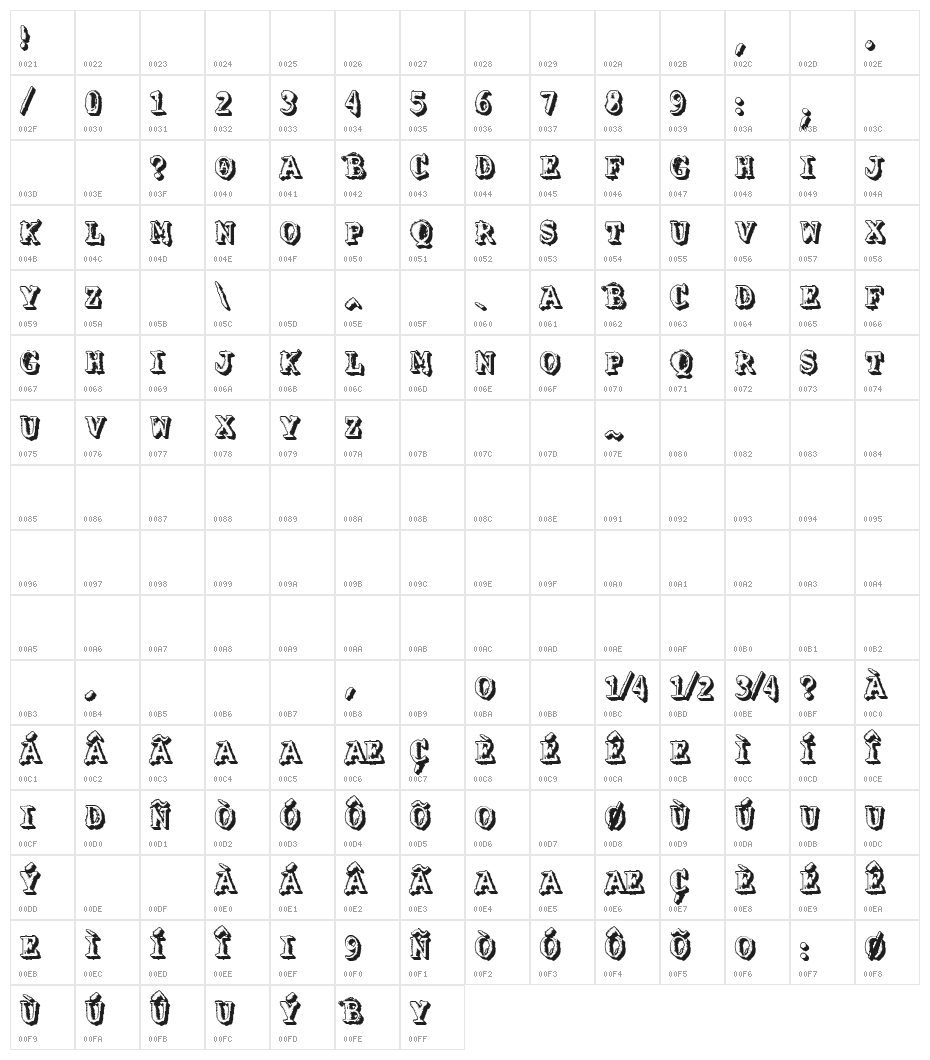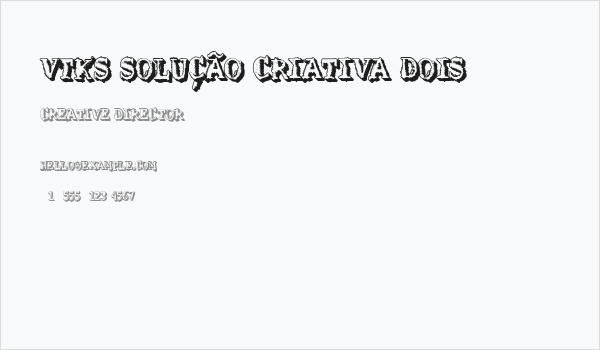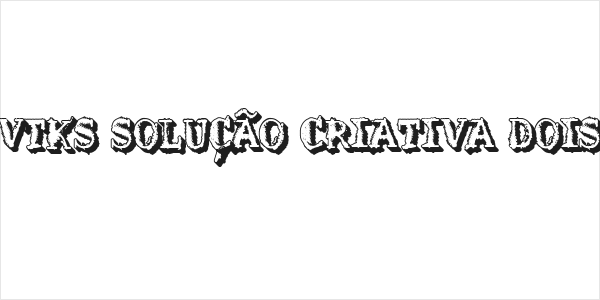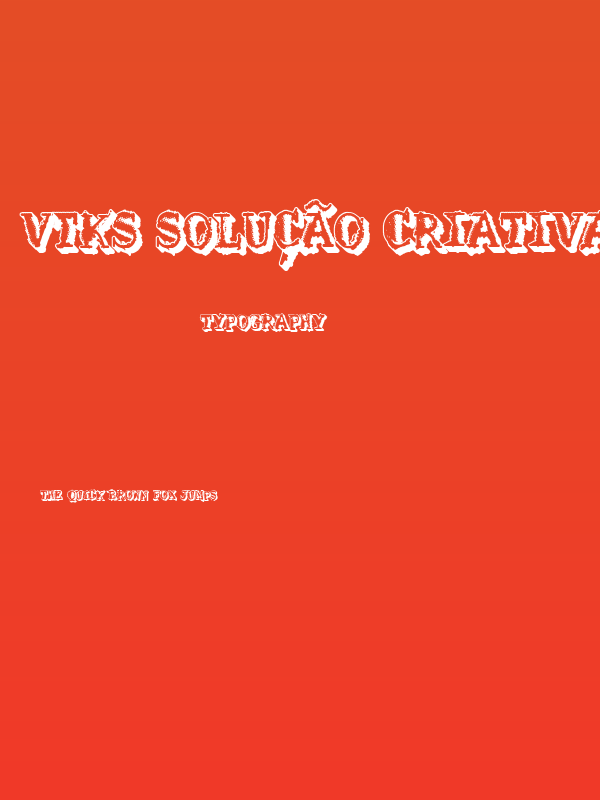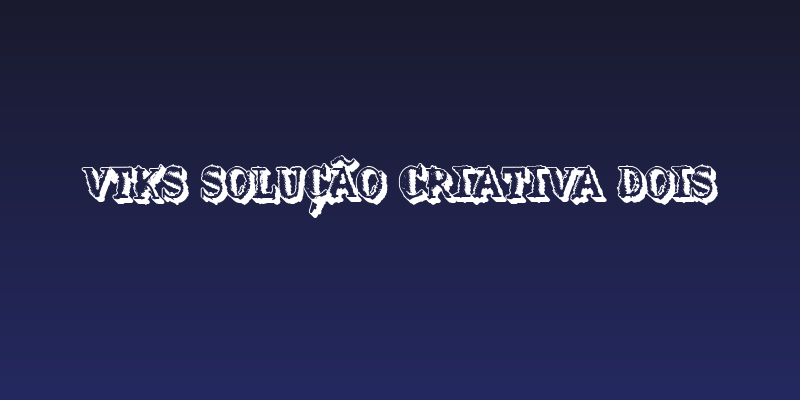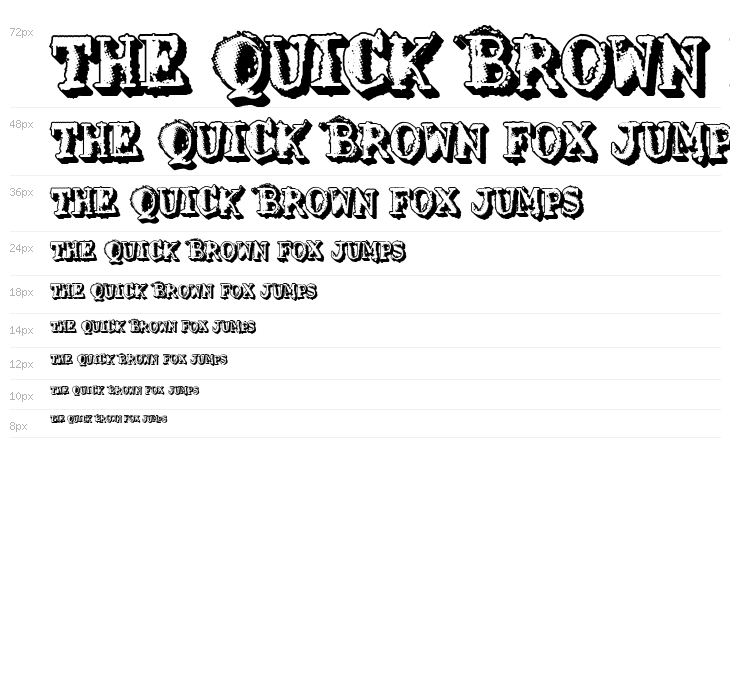
VTKS SOLUÇÃO CRIATIVA DOIS Font
VTKS SOLUÇÃO CRIATIVA DOIS Description
This font features a bold and dramatic style with a distressed, textured appearance that gives it a rugged and edgy feel. The letters are uppercase and have a three-dimensional effect with a shadow that enhances their boldness. The texture within each character adds a sense of depth and complexity, making it stand out in any design. The numbers and special characters follow the same stylistic approach, ensuring consistency across all elements. This font is ideal for projects that require a strong visual impact and a touch of grunge or urban flair.
Proposed ProjectsIdeal for posters, album covers, streetwear branding, and event flyers.